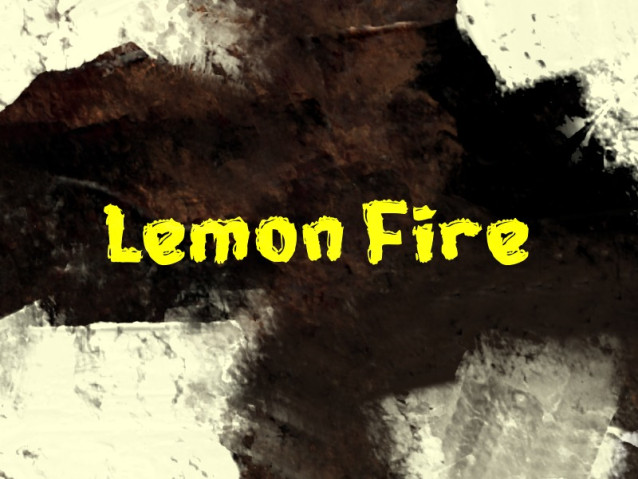
Lemon Fire Font
Lemon Fire Font is a simple and modern display font suitable for quotes, logos, headings, titles, and many more. Use it on any of your creative projects, and your designs will become outstanding!